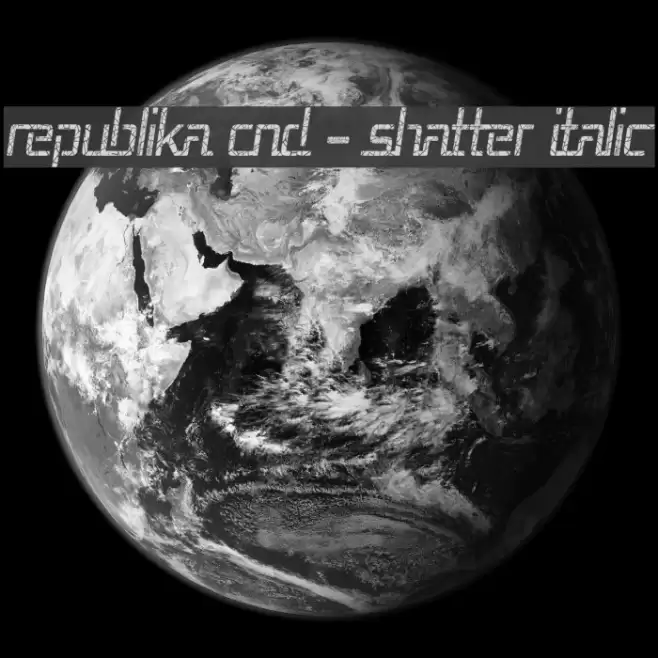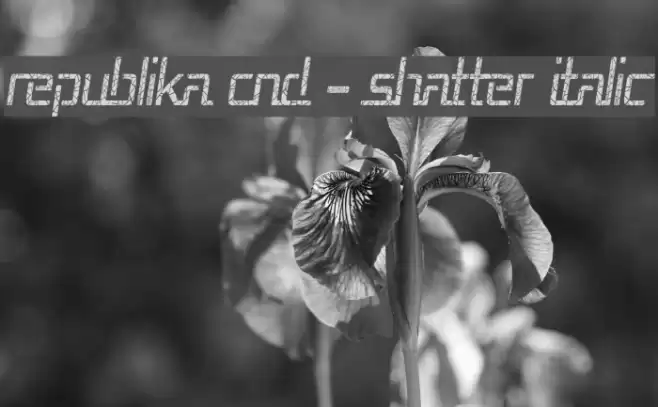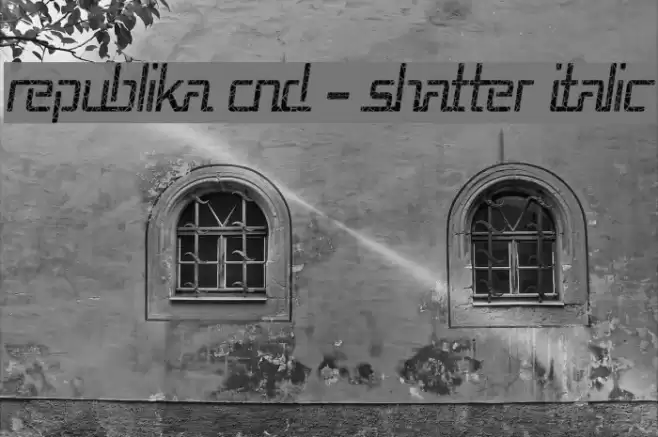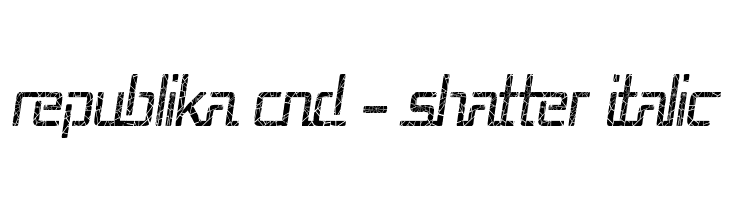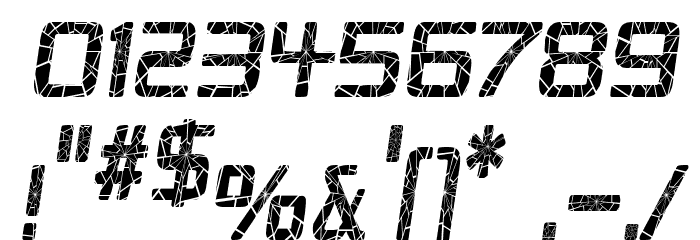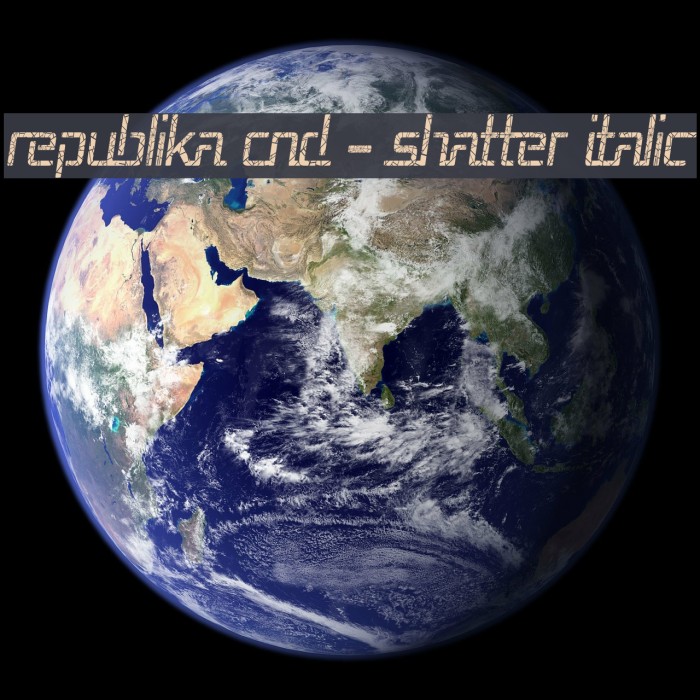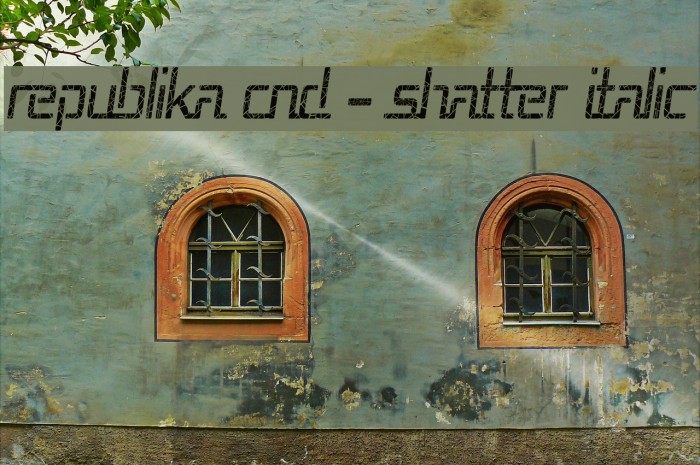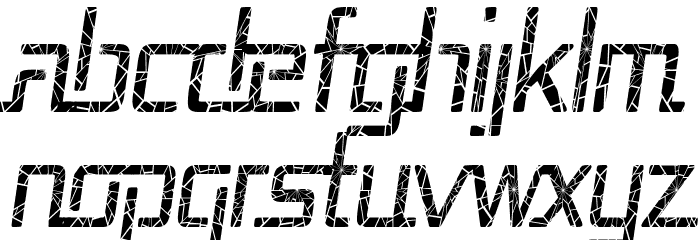
Republika Cnd - Shatter Italic Font
Republika Cnd - Shatter Italic Description
This font features a unique shattered effect, giving each character a fragmented and dynamic appearance. The italicized style adds a sense of motion and energy, making it stand out. The geometric design with sharp angles and broken lines creates a modern and edgy look. Each letter is distinct, with consistent fragmentation patterns that maintain readability while adding a decorative flair. The font's boldness is evident, with thick strokes that emphasize its shattered design. This style is perfect for projects that require a bold statement or a futuristic touch.
A bold, italicized font with a shattered, geometric design for a modern, edgy look from Uncategorized fonts.
- Proposed Projects: Ideal for album covers, posters, video game graphics, and branding that requires a futuristic or edgy aesthetic.
- Overall Style: Modern, Edgy